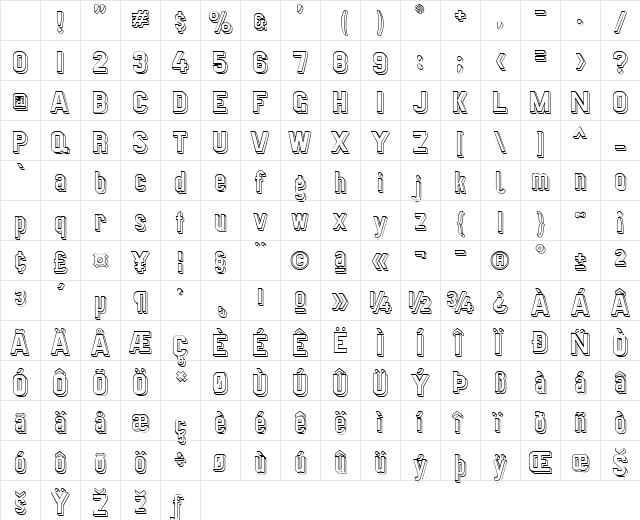
Complete Preussische VI 9 Schatten-Linie Regular glyph index. Displaying only characters natively supported by Preussische VI 9 Schatten-Linie Regular font.
Preussische VI 9 Schatten-Linie is a composed and adaptable typeface that performs quietly and consistently across a wide range of design contexts.